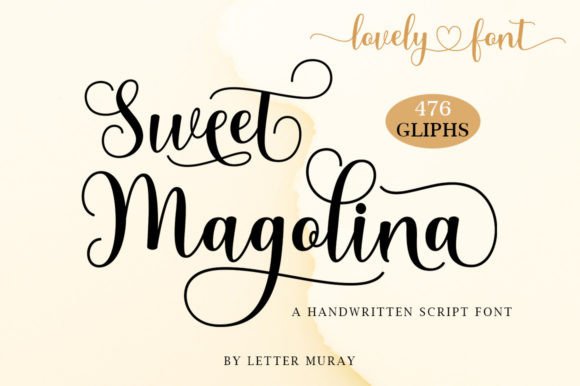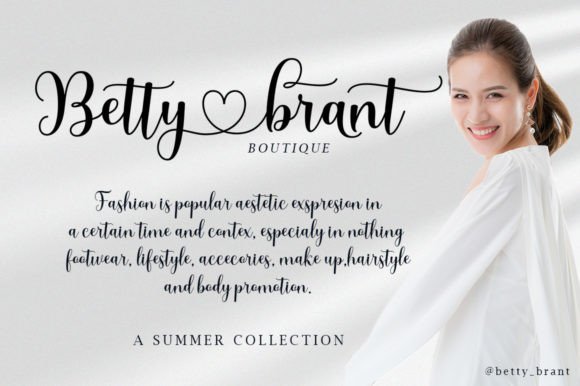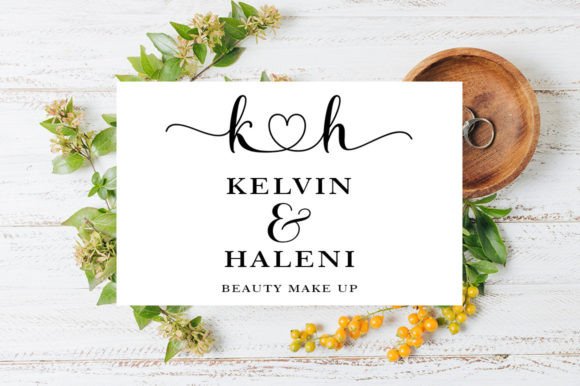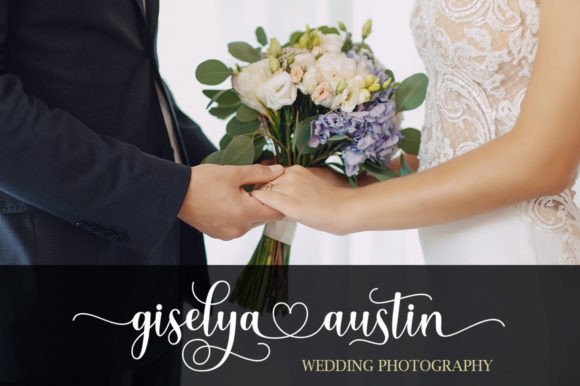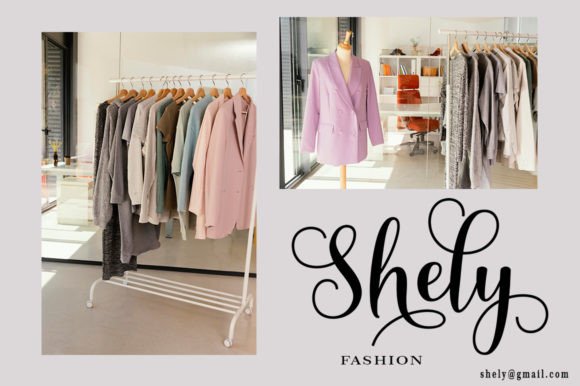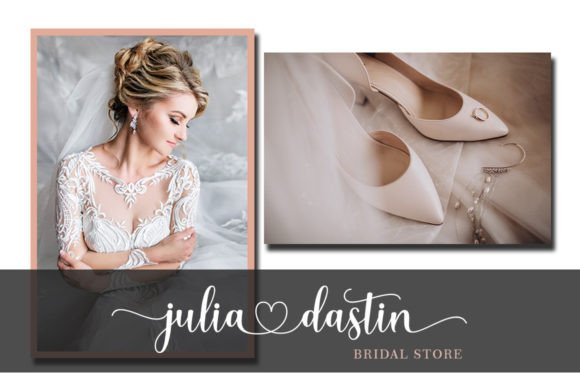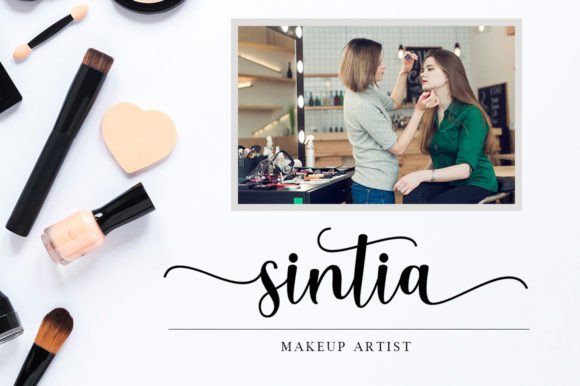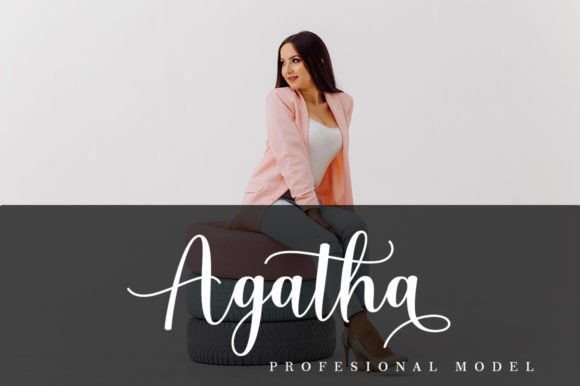
About Sweet Magolina
Sweet Magolina Script is a beautiful modern calligraphy typeface. Sweet Magolina is perfect for today’s emerging market design. This font has a stylish, trendy, natural, and soft touch. You can use it for wedding invitations, branding, parties, graduations, birthdays, gatherings, etc.